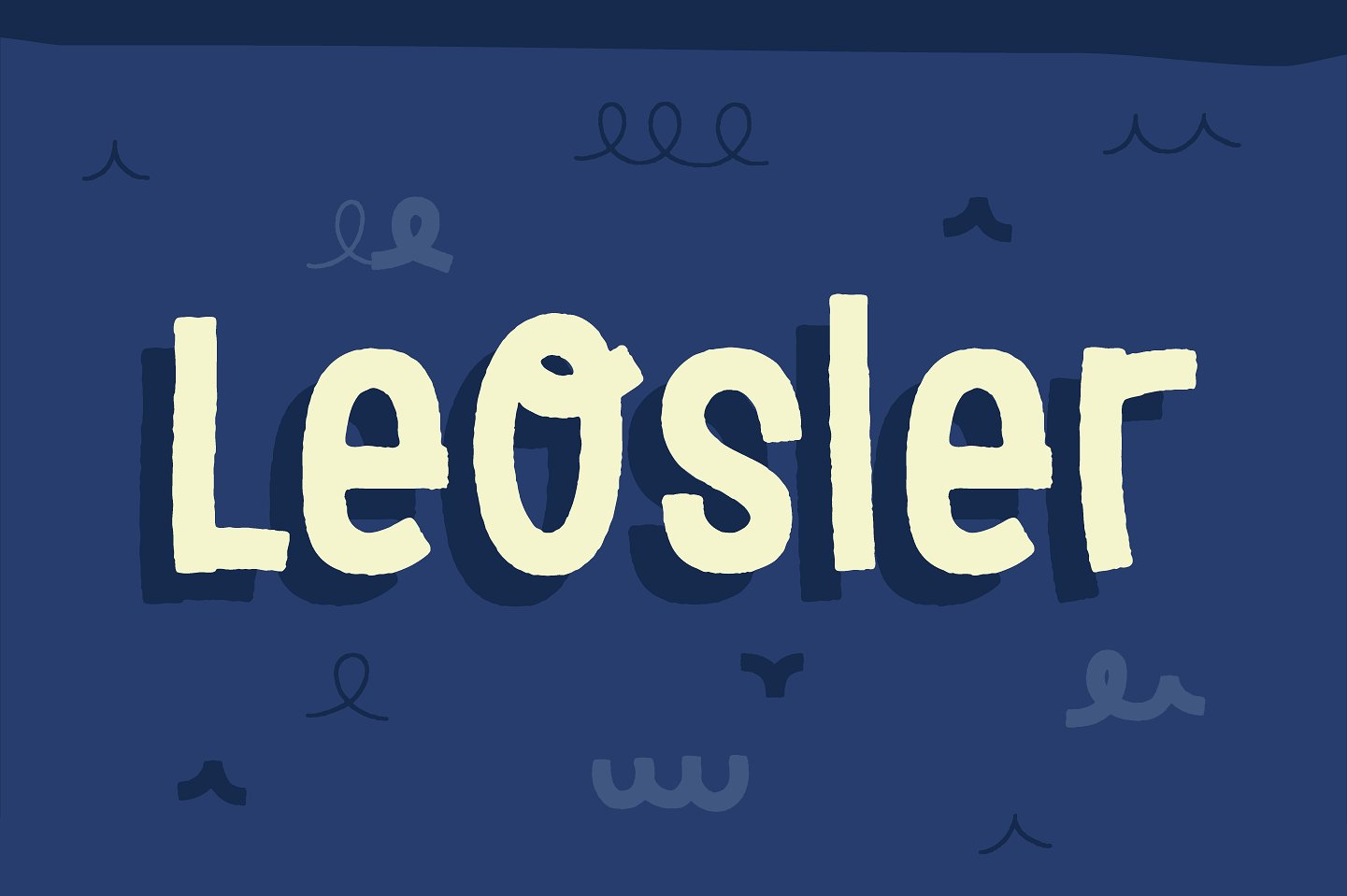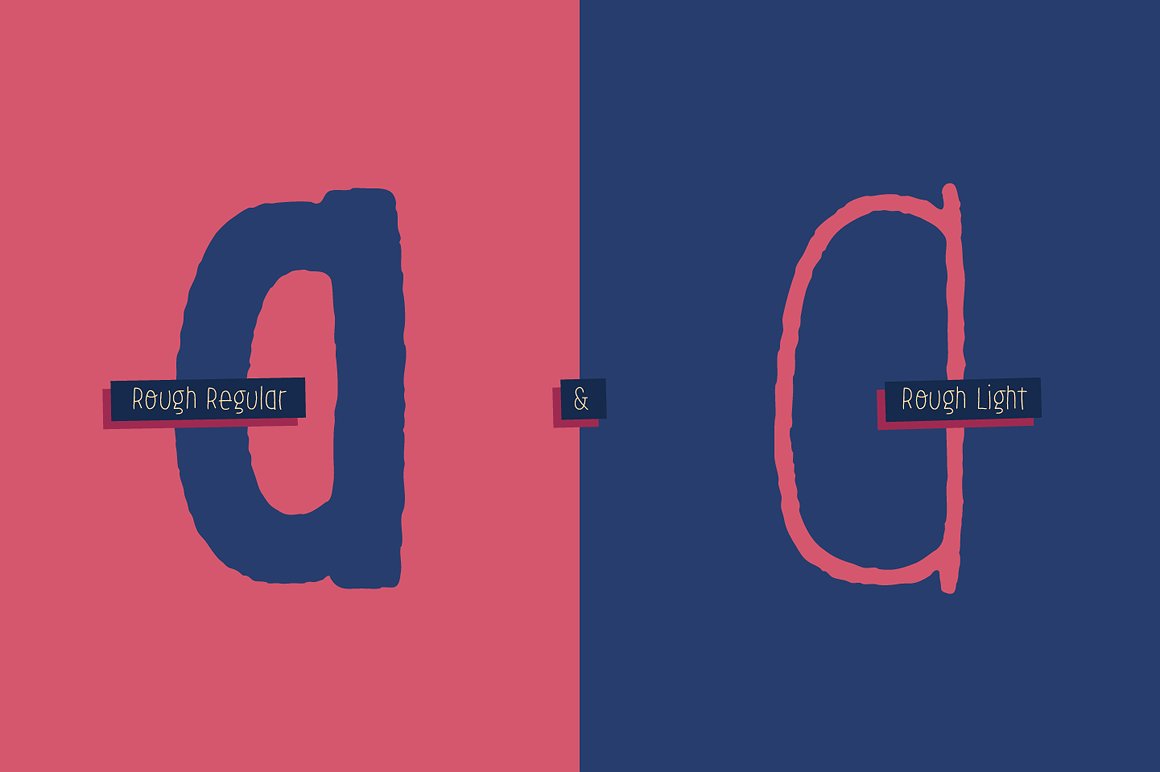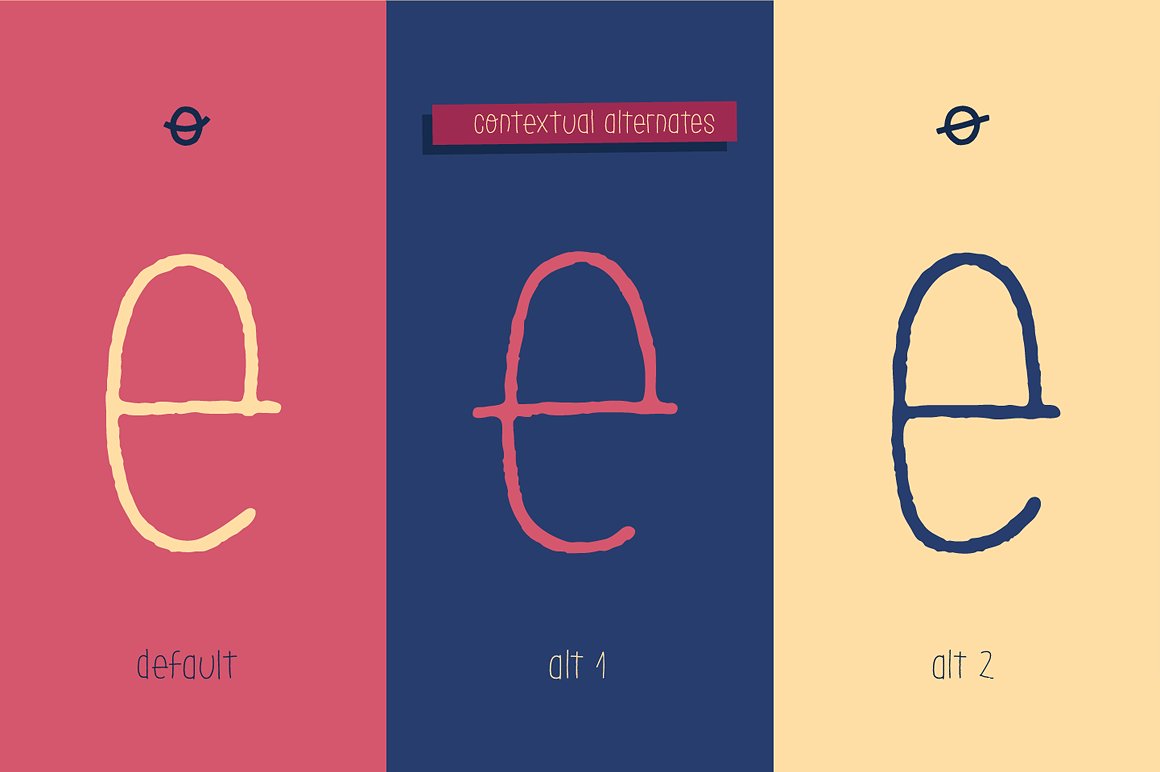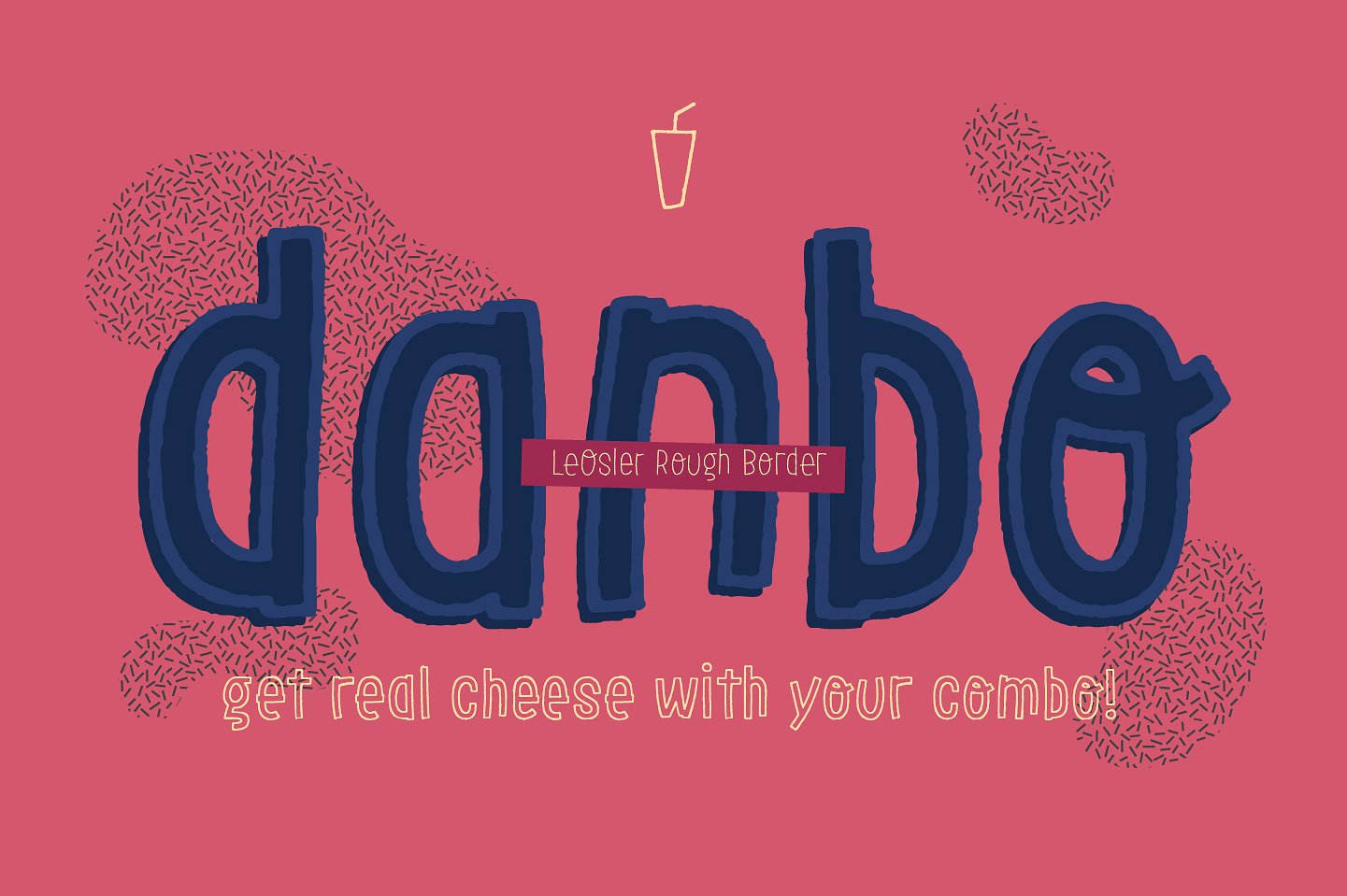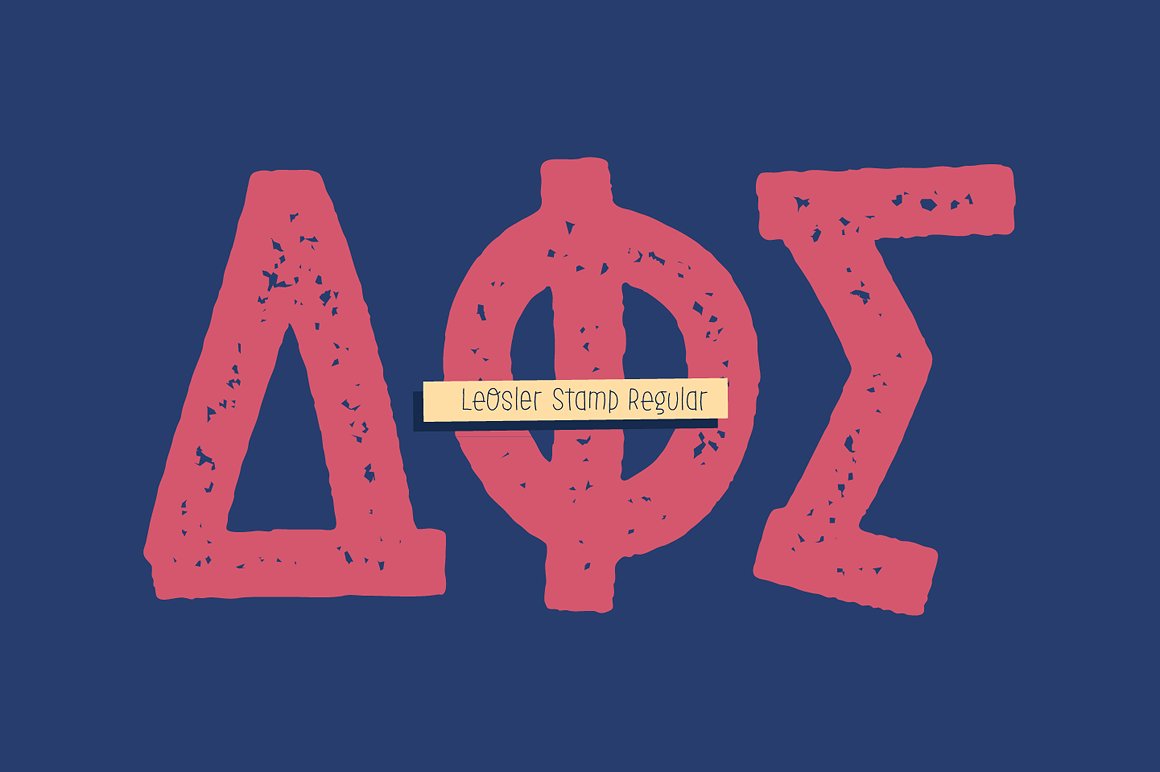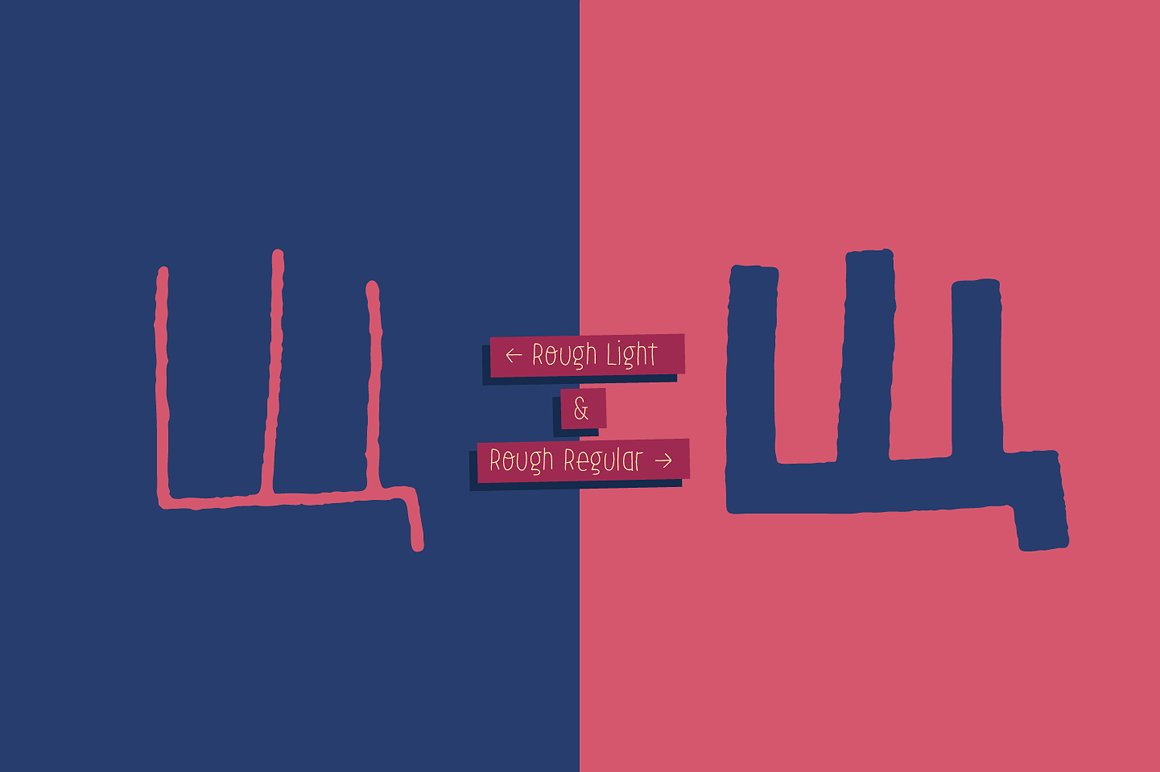
Introduction to LeOsler Font Font
Fonts play a crucial role in design, and the LeOsler Font font is a typeface that brings both character and versatility to any project. Whether you’re working on a branding project, a website, or a print design, the LeOsler Font font offers a unique style that can elevate your work.
βLeOsler is a decorative, fun, handwritten font which will bring a personal look to your work.
This font includes the Latin, Greek and Cyrillic alphabets, and can be used in a wide range of languages, including English, Spanish, Italian, French, German, Polish, Czech, Vietnamese, Russian, Greek, among many others βLeOsler also offers a set of icons that will provide a much more personal look to your work.
Key Features of LeOsler Font Font
Why Choose LeOsler Font Font?
The LeOsler Font font is more than just a typeface β it’s a design tool that helps you communicate your message with style and clarity. Its unique character set and versatile design make it suitable for a wide range of applications, from elegant invitations to bold headlines.
With its carefully crafted letterforms and balanced proportions, the LeOsler Font font ensures readability and visual appeal across all mediums.
What makes LeOsler Font font special?
The LeOsler Font font stands out with its unique design, exceptional readability, and versatility across various design applications.